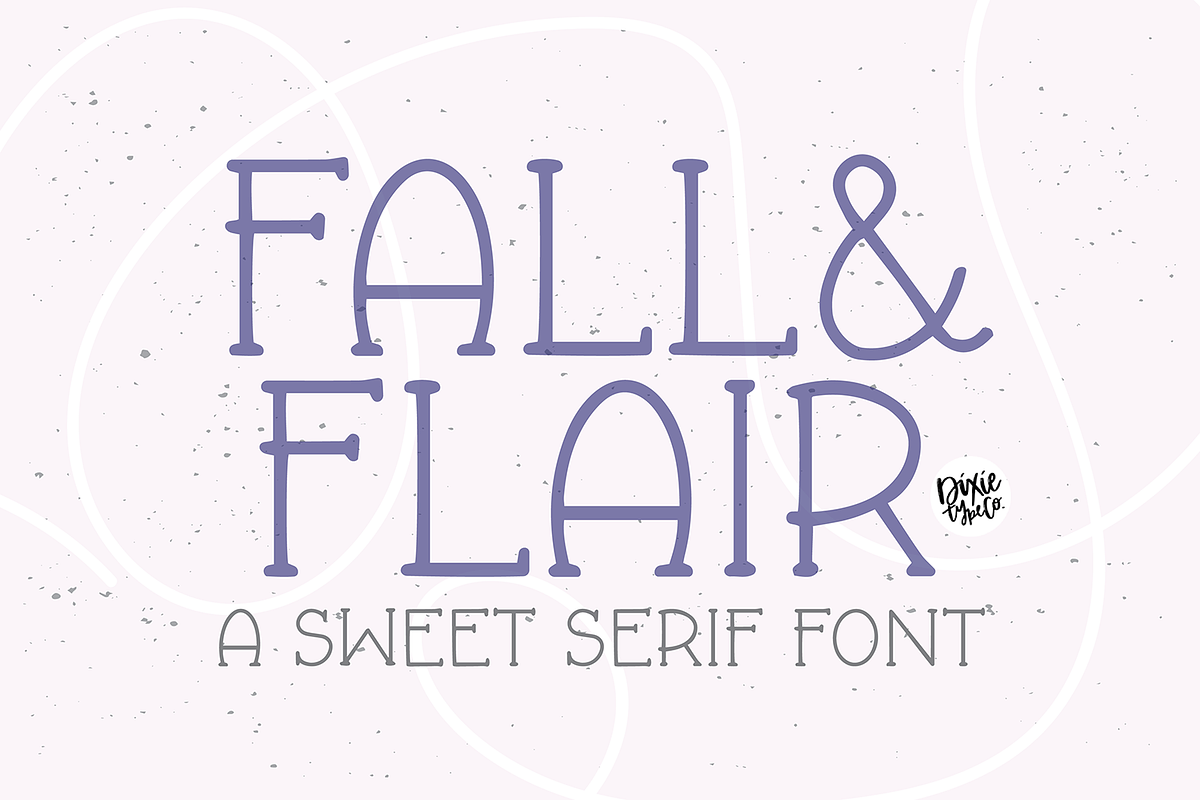
Capture rustic charm and seasonal warmth with FALL & FLAIR Farmhouse Serif Font Free Download. This cozy serif typeface is inspired by farmhouse aesthetics and vintage signage, making it the perfect choice for home décor designs, seasonal quotes, packaging, wedding invites, and country-style branding.
With slightly rounded serifs, balanced letterforms, and a handcrafted vibe, FALL & FLAIR adds a welcoming, homey feel to any project. It includes uppercase and lowercase letters, numerals, and punctuation—great for testing layouts that aim to be both elegant and approachable.